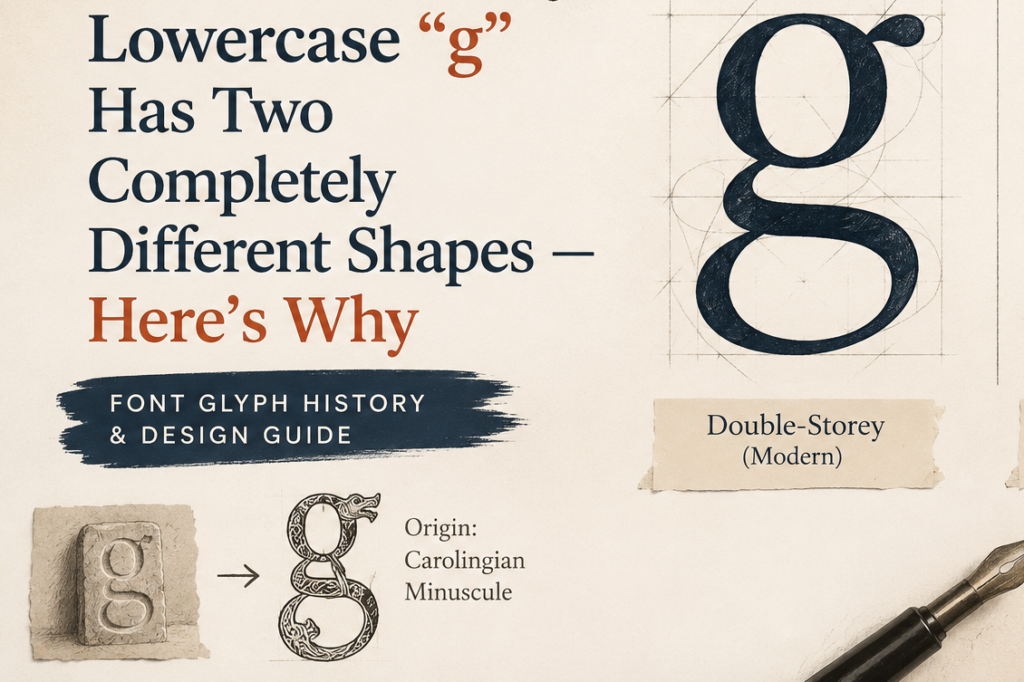
Look closely and you’ll notice something odd: lowercase “g” doesn’t have one standard shape the way most letters do. Depending on the font, it might have a simple open tail, or it might loop dramatically below the baseline into something that looks almost like a figure eight. Few letters in the Latin alphabet show this much structural variation while still being read as the exact same character.
A Short History of “g”
“g” has one of the more unusual backstories in the alphabet because, unlike most letters, it was invented rather than inherited. The Romans originally used “C” for both a hard “k” sound and a hard “g” sound, since early Latin didn’t distinguish clearly between the two. That created constant ambiguity, so at some point during the early Republic era, a modification was made: a small stroke was added to “C” to create a new letter dedicated specifically to the voiced “g” sound. That new letter was “G,” and it was inserted into the Latin alphabet in the position previously held by the Greek letter zeta, which Latin didn’t need at the time.
Because “G” was essentially “C” with an addition, the two letters have always shared close visual DNA — you can still see the family resemblance in the curved bowl both letters carry today.
Lowercase “g” took a genuinely strange turn during the medieval period. While most lowercase letters simplified and rounded out from their capital ancestors in fairly predictable ways, “g” split into two distinct handwritten traditions. One tradition kept a single-story form, closer to the capital shape with an open tail curling below the baseline. The other developed into a double-story form, where the descender curls back up into a closed or nearly closed loop, creating that figure-eight-like silhouette. Both traditions survived side by side for centuries and were eventually absorbed into standard typography, which is why modern fonts still split down these two lines today.
Anatomy of a Lowercase “g”
Because “g” comes in two structurally different versions, it needs two separate anatomical breakdowns.
The single-story g consists of a rounded bowl, similar in basic shape to “a” or “o,” attached to a descender — a curved tail that drops below the baseline and typically hooks or curls slightly at the bottom. This version looks closer to handwriting and tends to feel more casual or approachable.
The double-story g (sometimes called a “looped g”) is considerably more complex. It has an upper bowl, similar to a single-story “g,” but instead of a simple hooked tail, the descender loops back on itself to form a closed or partially closed lower counter — a second enclosed space beneath the first. This creates a shape with two distinct rounded compartments stacked vertically, connected by a narrow link or neck.
The link is the most technically demanding part of a double-story “g” to draw. Too thick, and the letter looks clumsy and heavy at the middle. Too thin, and it becomes fragile-looking or can disappear entirely at small print or screen sizes. Getting the proportion between the upper bowl, the link, and the lower loop right is considered one of the more advanced challenges in lowercase letter design.
Designing the Letter From Scratch
Before a type designer draws a single curve, they have to make a decision most other letters don’t require: single-story or double-story. This choice is rarely arbitrary — it usually gets set by the overall personality of the typeface. Geometric, humanist, and many contemporary sans-serif designs often lean toward single-story g’s because they feel cleaner and more casual. Traditional serif and editorial typefaces tend to favor the double-story form because it carries more historical, literary weight.
For a single-story g, the process starts with the bowl, drawn using the same curve logic as “a” and “o,” then extended into a descender. The trickiest part is the hook at the bottom of the tail — too tight a curl and it looks fussy, too loose and the letter feels unfinished or like it’s trailing off mid-stroke.
For a double-story g, designers usually draw the upper bowl first, matching it to “o” and “a” for consistent curve tension. Then comes the hardest part of the entire letter: the link connecting the upper bowl to the lower loop. This gets tested extensively at multiple sizes, since a link that looks elegant at large display sizes can clog into an unreadable blob in small body text. Many designers build several link variations before settling on one that survives both scales.
Whichever form is chosen, the descender depth needs to match other descending letters in the typeface — “j,” “p,” “q,” and “y” — so the whole line of text sits with a consistent rhythm below the baseline.
Unique Facts About “g”
The double-story “g” is widely considered one of the hardest single letters to draw well in an entire typeface, and type designers sometimes cite it as a genuine skill benchmark — a well-executed double-story g is often treated as a sign of a mature, well-considered typeface.
Because of the loop’s complexity, some early digital and low-resolution rendering systems struggled specifically with double-story g’s, which occasionally clogged or blurred at small screen sizes before font hinting technology improved enough to handle the shape reliably.
Summary
Lowercase “g” is proof that not every letter in the alphabet settled on a single agreed-upon shape — its single-story and double-story forms both trace back to competing medieval handwriting traditions that never fully merged, and both survive today as fully legitimate, interchangeable versions of the same letter. Between its invented origin as a modified “C” and its uniquely demanding double-story anatomy, “g” carries more structural complexity than almost any other lowercase character.